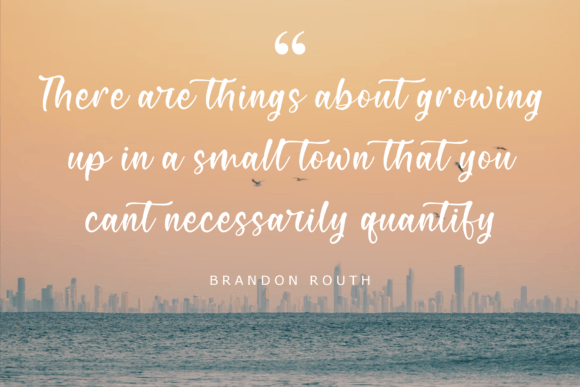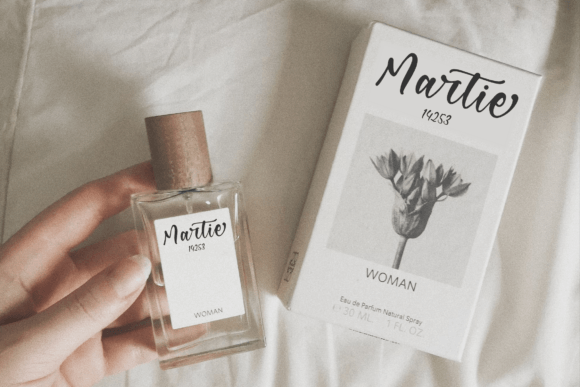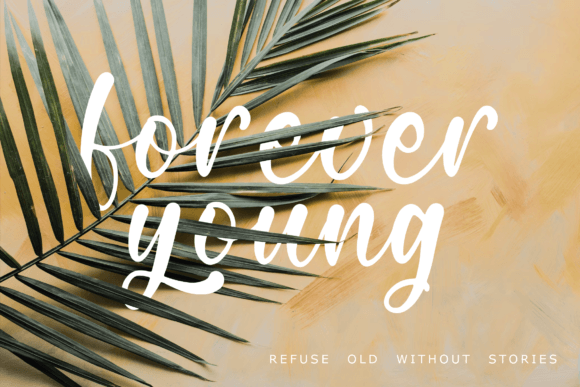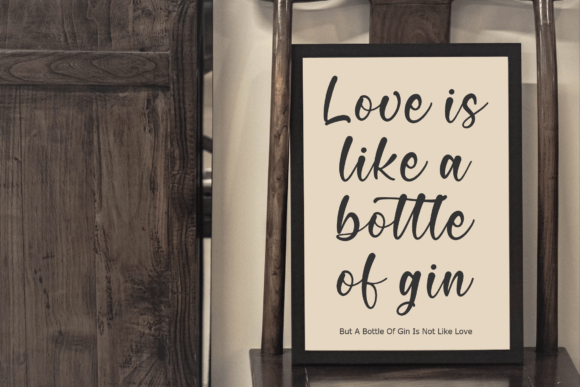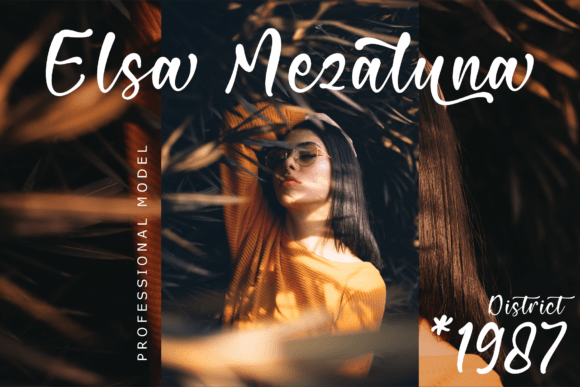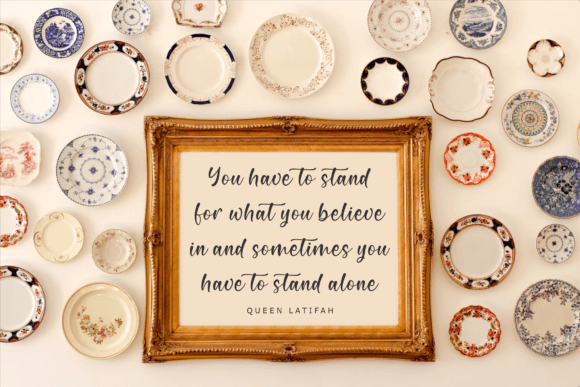
Have you ever stared at a blank page, waiting for the perfect font to bring your design to life? That’s where the magic happens, and for many designers, it’s a moment of pure joy. The search for the perfect font can be overwhelming, but what if I told you there’s one that stands out from the crowd?
Enter Carttiny Nadeen Font, a beautiful handwritten font that adds an elegant touch to any project. With its unique, flowing style, Carttiny Nadeen Font is perfect for creating spectacular designs that leave a lasting impression. Whether you’re a seasoned designer or just starting out, this font is a valuable asset that can elevate your work to new heights.
Carttiny Nadeen Font Key Features
- Font Family: Carttiny Nadeen
- Unique Characteristics: Elegant, modern, and minimalist design with a subtle touch of Arabic script influence
- Character Count: 1024 glyphs (including Latin, Arabic, and other languages)
Review of Carttiny Nadeen Font
Overall, I’m quite pleased with the Carttiny Nadeen Font. It’s a beautifully designed script font that works well for titles, headings, and other text-based elements. ✨
- It’s highly customizable, allowing users to adjust the font size, style, and color to suit their needs.
- The font’s flowing curves and elegant lines make it perfect for creating a sense of luxury and sophistication.
- It’s also relatively lightweight, which makes it easy to load and render on various devices.
However, there are a few limitations to keep in mind. ⚠️
- The font may not be suitable for large blocks of text, as its script design can make it difficult to read.
- It may not be the best choice for digital displays with limited resolution, as its fine details can become distorted.
- The font’s customizability can also be a double-edged sword, as it can be overwhelming for users who are not familiar with font design.
Overall, I’d recommend the Carttiny Nadeen Font for designers who need a high-end, elegant font for their projects. While it may have some limitations, its unique design and customization options make it a valuable addition to any font library.
Getting the Most Out of Carttiny Nadeen
For optimal results, use Carttiny Nadeen font for titles, headings, or any text that requires a touch of elegance and sophistication. Experiment with different font sizes and colors to create visually appealing contrast.
Carttiny Nadeen font is ideal for:
– Fashion and beauty branding
– Luxury product packaging and labeling
– High-end marketing materials
Alternatives to Carttiny Nadeen Font
The Great Vibes Font is a beautiful, handwritten font that works well for creative projects, such as invitations, quotes, and social media graphics. It’s a more elegant and sophisticated alternative to Carttiny Nadeen Font, making it suitable for high-end designs.
Comparison to Carttiny Nadeen Font: Great Vibes Font has a more refined and polished look, while Carttiny Nadeen Font has a more playful and whimsical feel. Great Vibes Font is better suited for formal designs, while Carttiny Nadeen Font is perfect for casual and creative projects.
The Dancing Script Font is a lively and elegant script font that’s ideal for projects that require a touch of sophistication and glamour. It’s a great alternative to Carttiny Nadeen Font for designs that need a more refined and polished look.
Comparison to Carttiny Nadeen Font: Dancing Script Font has a more elegant and refined look, while Carttiny Nadeen Font has a more playful and casual feel. Dancing Script Font is better suited for high-end designs, while Carttiny Nadeen Font is perfect for casual and creative projects.
The Pacifico Font is a beautiful, elegant script font that’s perfect for projects that require a touch of sophistication and elegance. It’s a great alternative to Carttiny Nadeen Font for designs that need a more refined and polished look.